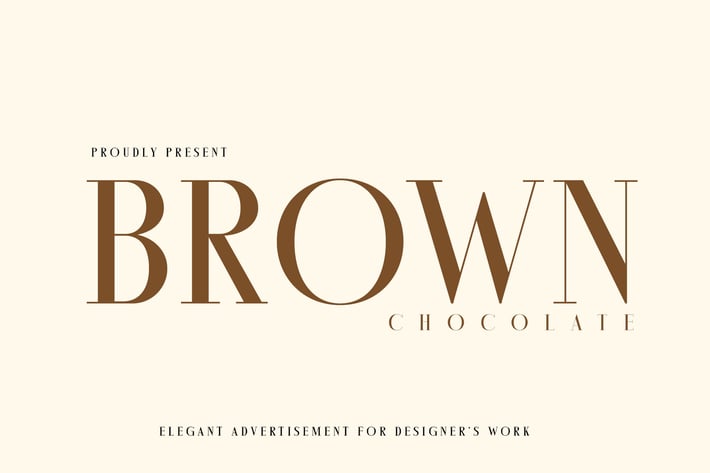
Brown Chocolatte Advertisement Font
Brown Chocolatte is modern minimalism font. It can easily be matched to an incredibly large set of projects like logo, package, advertisement, magazine, ,so add it to your creative ideas and notice how it makes them stand out!